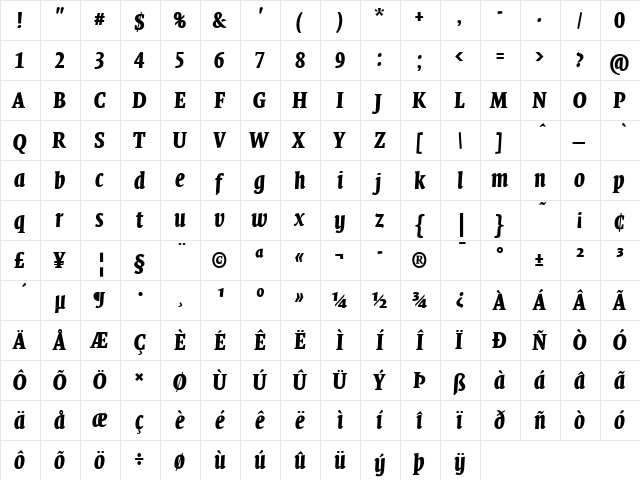
Quadraat Display Bold Italic Font Preview
Design Context for Quadraat Display Typeface
Quadraat Display is built around its visual character rather than neutral utility — its distinctive forms are designed to make an impression at display sizes. Its italic angle brings a sense of urgency and motion to the letterforms. The heavy weight commands attention and anchors typographic hierarchies.
Font Pairing: Pair with a clean neutral sans-serif for body copy to let Quadraat Display's character lead without overwhelming the composition.
Pro Tip: Treat Quadraat Display as the centrepiece of your typographic hierarchy. One strong heading set in a decorative face can carry an entire layout.